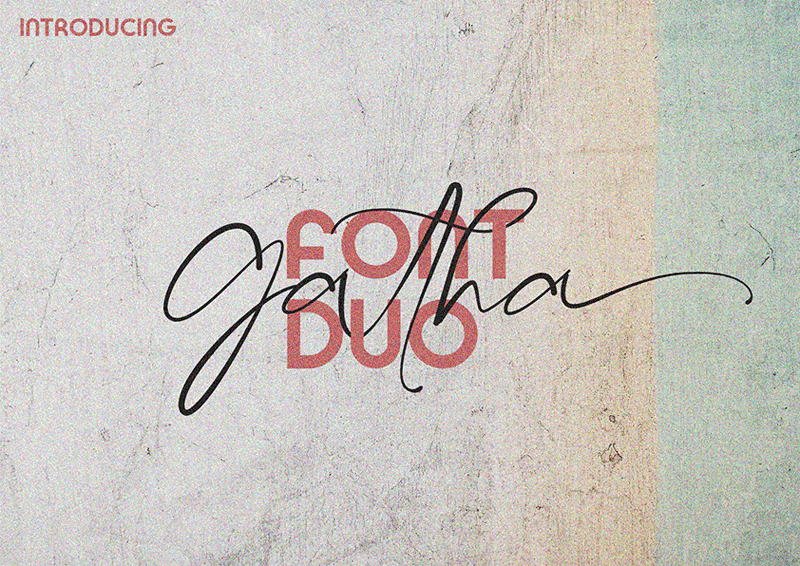
Font name: | Gatha Script |
Author: | Khaiuns |
Gatha is a playful font duo that includes a signature script and a elegant sans � already matched up and ready to be used together for your next design! NOTE: This demo font is for PERSONAL USE ONLY! But any donation are very appreciated. Paypal account for donation : https://paypal.me/khaiuns Link to purchase full version and commercial license: https://www.creativefabrica.com/product/gatha-font-duo/ And follow my instagram for update: https://www.instagram.com/khaiuns/ Thank you |